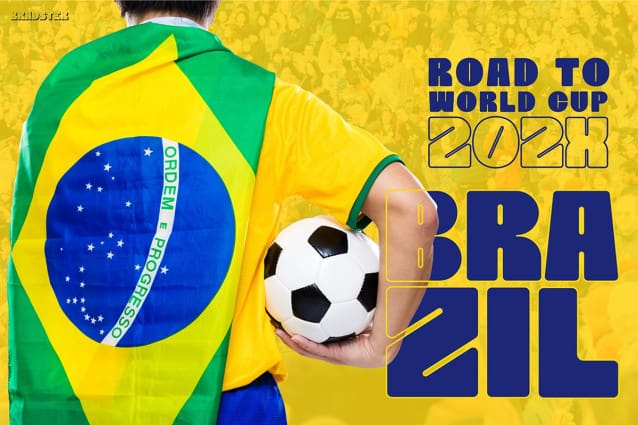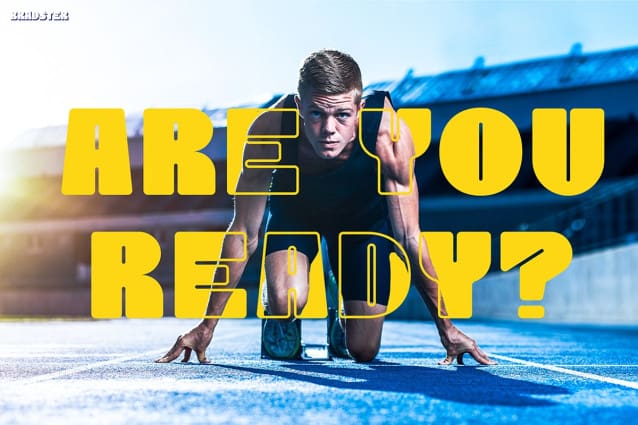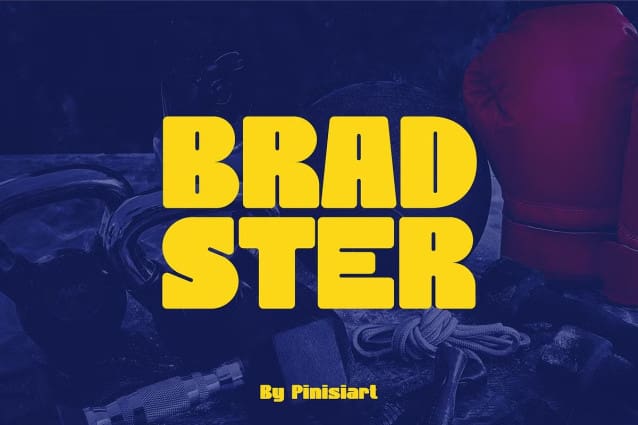
Bradster Font
Bradster Font is a bold, dynamic typeface inspired by athletic energy and modern design. Its blocky letters, rounded corners, and sturdy structure make it immediately eye-catching. The vibrant yellow and blue color scheme adds contrast, enhancing its visibility. As a result, this font is perfect for projects that need a bold and striking visual impact.
Additionally, Bradster Font has a youthful and sporty feel, effortlessly blending athletic aesthetics with modern style. While it’s bold, the soft edges give it a friendly touch, making it approachable. Therefore, this balance allows the font to be versatile for both playful and serious projects. Furthermore, the background imagery—such as kettlebells and boxing gloves—reinforces the font’s connection to strength and fitness. Consequently, it’s perfect for projects related to sports, endurance, and active lifestyles.